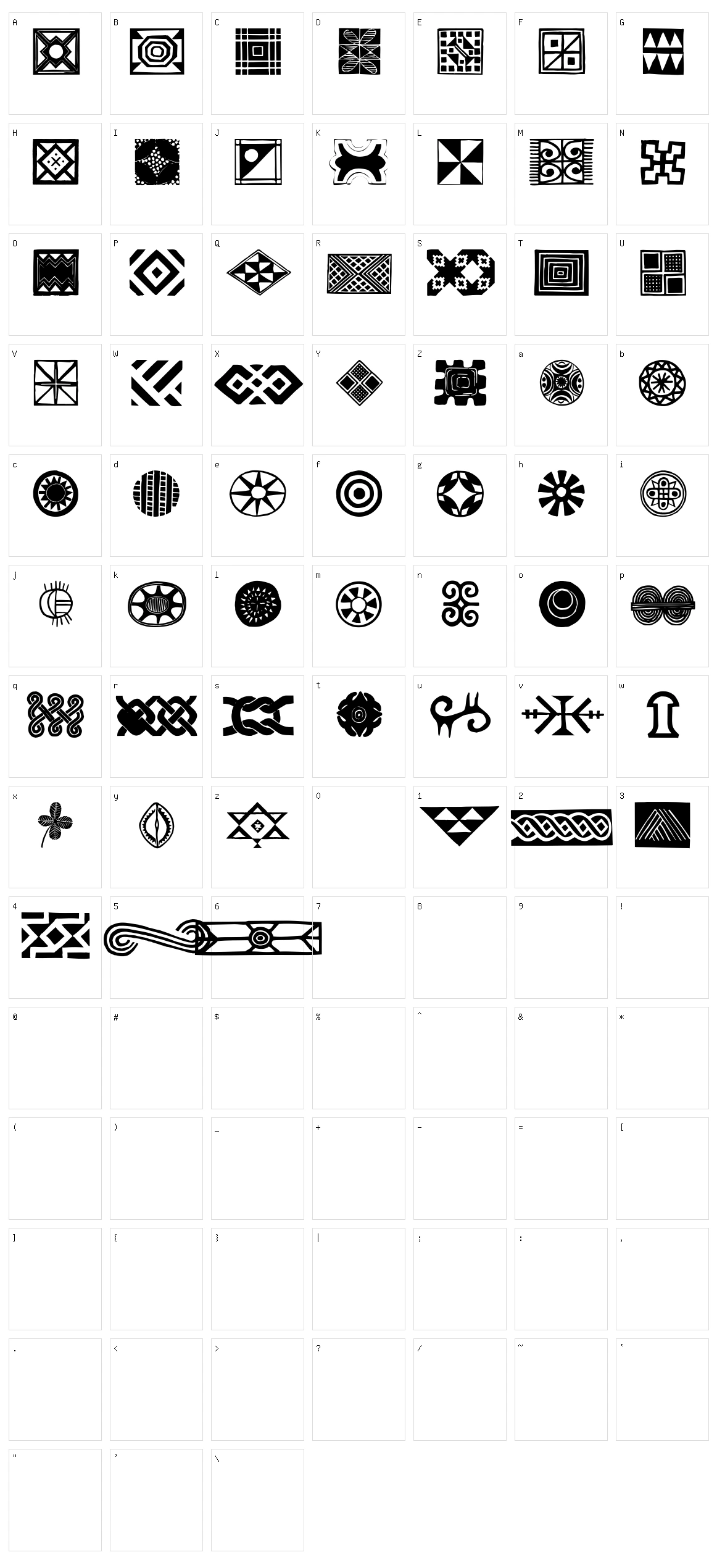
Thank you very much for trying African Ornaments One, my font of beautiful decorative designs derived from the art of the Ashanti, Masai, Zulu, Bushongo, and numerous other tribes. I hope you enjoy it and find it useful.